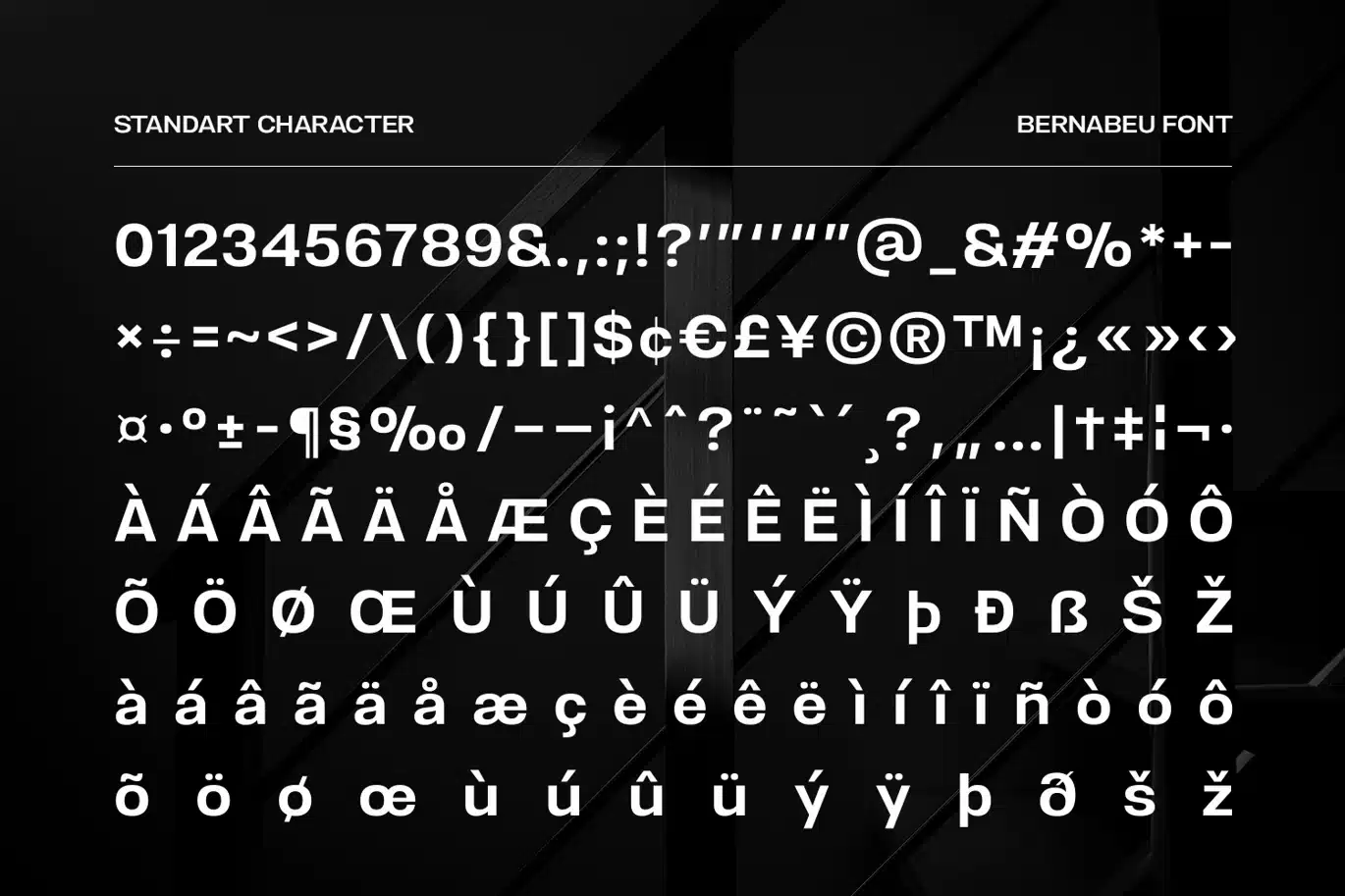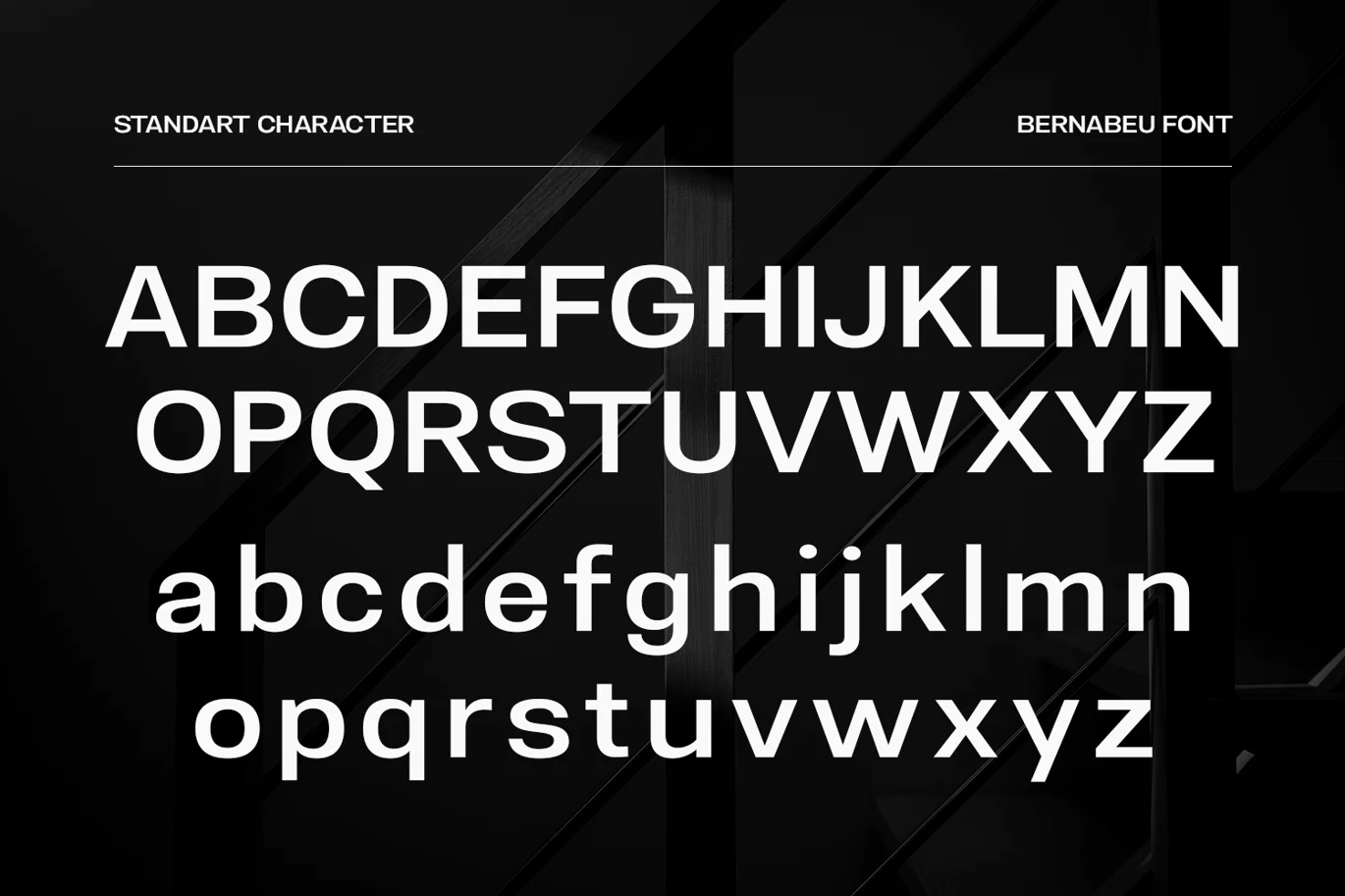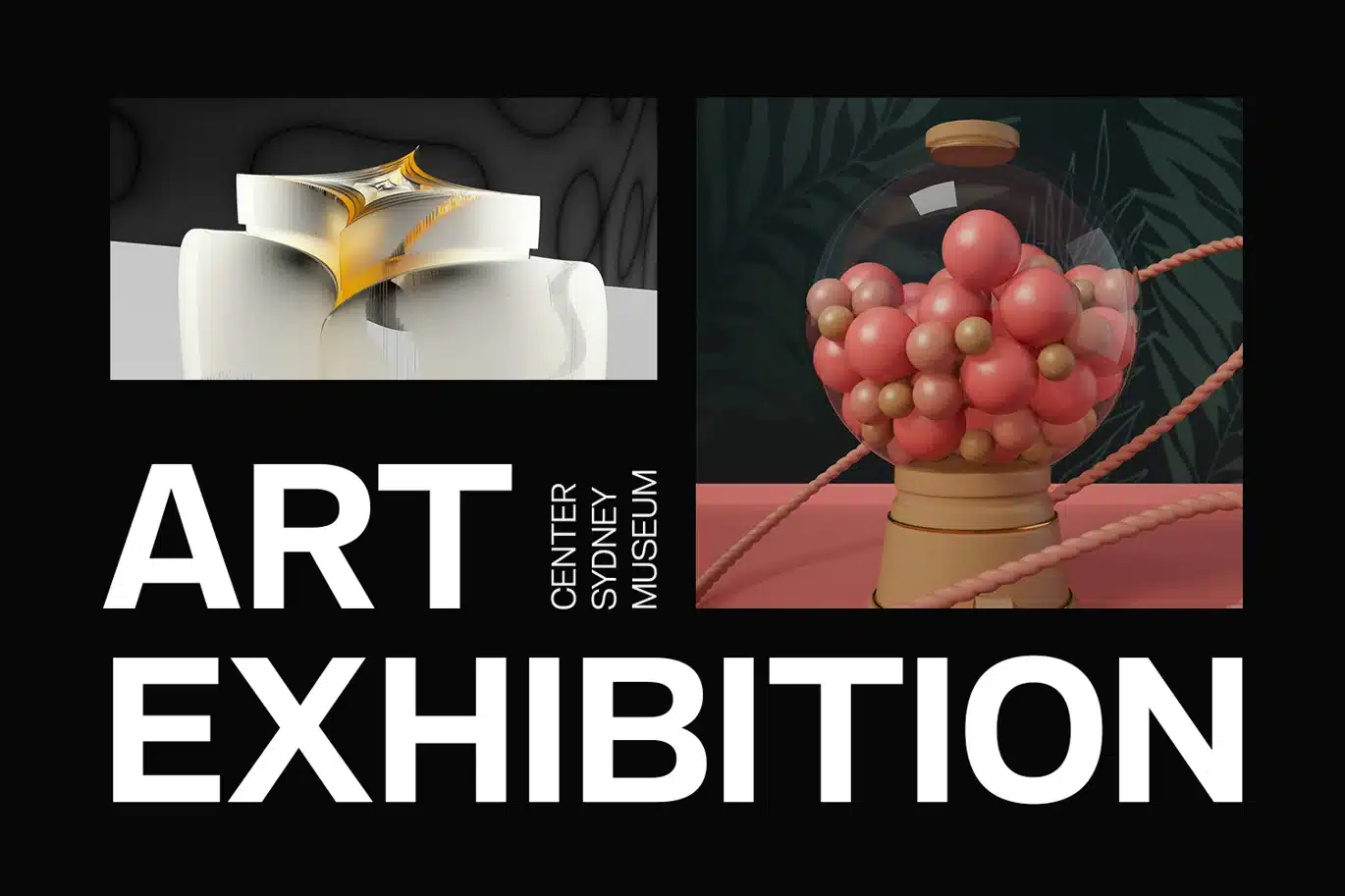
Creative Agency Font – Bernabeu
Bernabeu is a bold and modern sans-serif typeface designed to make a statement. Inspired by the timeless neo-grotesk style of the 20th century, it features geometric letterforms, sharp edges, and a high x-height, making it perfect for striking visuals. With minimal stroke contrast, Bernabeu exudes a clean and contemporary aesthetic that works seamlessly across different mediums.
This typeface comes in a total of 18 styles, with 9 font weights and matching italics, giving you plenty of flexibility for your designs. Whether you're working on branding, headlines, signage, packaging, or editorial layouts, Bernabeu delivers a strong and professional presence. Its well-balanced kerning and spacing ensure that every word stands out with clarity and impact.
Bernabeu is ideal for bold typographic statements in magazines, posters, advertisements, websites, and UI/UX projects. It’s built to grab attention, making it a perfect choice for logos, titles, and high-impact visuals. However, it's not meant for body text—this font thrives in large sizes where its details can truly shine.
Fonts include multilingual support for; Afrikans, Danish, Dutch, English, Estonian, Filipino, Finnish, French, Friulian, Galician, German, Gusii, Indonesian, Irish, Italian, Luxembourgish, Norwegian Bokmål, Norwegian Nynorsk, Nyankole, Oromo, Portuguese, Romansh, Rombo, Spanish, Swedish, Swiss-German, Uzbek (Latin) Scottish, Swiss, etc.